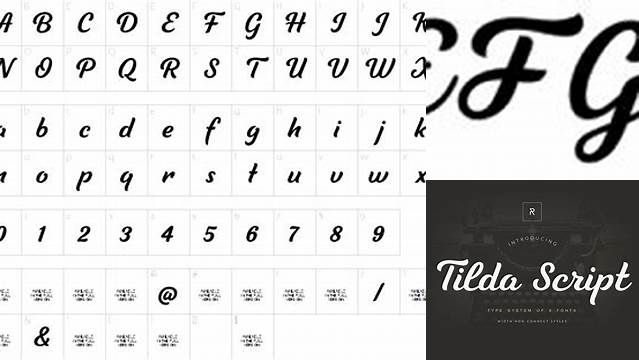
Tilda Script Semibold: Free Font Download & Guide
Are you looking for a font that adds a touch of elegance and personality to your projects? Look no further! Tilda Script Semibold is a fantastic free font that can elevate your designs, making them stand out with its unique charm. In this article, we'll dive deep into what makes Tilda Script Semibold special, how you can use it, and why it's a great choice for various design applications. This versatile typeface is perfect for adding a personal touch to invitations, logos, and website designs. Its flowing lines and semi-bold weight strike a balance between readability and style, ensuring that your message is both beautiful and clear. Whether you're a seasoned designer or just starting out, Tilda Script Semibold is a valuable addition to your font library.
What is Tilda Script Semibold?
Tilda Script Semibold is a beautiful script font known for its flowing, handwritten style. It's designed to mimic natural handwriting, giving your text a personal and authentic feel. The "Semibold" weight adds a bit of boldness, making it more legible and impactful than lighter script fonts. This makes it incredibly versatile for a range of design projects.
Key Features of Tilda Script Semibold
- Elegant Design: The flowing lines and graceful curves give it an elegant and sophisticated look.
- Semi-Bold Weight: Provides better readability and impact compared to lighter script fonts.
- Versatile: Suitable for various design applications, from invitations to logos.
- Unique: Stands out with its distinctive and charming appearance.
Why Choose Tilda Script Semibold?
When it comes to selecting a font, you want something that not only looks good but also serves its purpose effectively. Tilda Script Semibold offers several advantages that make it a standout choice. First and foremost, its elegant design can instantly enhance the aesthetic appeal of any project. Whether you're working on wedding invitations, branding materials, or website headers, this font adds a touch of sophistication and personality. The semi-bold weight is another significant advantage. Unlike some script fonts that can be too delicate and difficult to read, Tilda Script Semibold strikes a perfect balance. It's bold enough to be legible, even in smaller sizes, yet still retains the graceful, flowing lines that make it so attractive. Plus, the fact that it's free makes it an accessible option for designers of all levels. You can experiment with it without worrying about licensing fees or budget constraints. This font is also incredibly versatile, fitting seamlessly into various design styles and themes. Whether you're going for a vintage, modern, or whimsical look, Tilda Script Semibold can adapt to complement your vision. Overall, choosing Tilda Script Semibold means opting for a font that combines beauty, readability, affordability, and versatility – a winning combination for any design project.
How to Use Tilda Script Semibold in Your Projects
Okay, guys, let's get practical! How can you actually use Tilda Script Semibold in your designs? Here are some ideas:
1. Invitations and Cards
Tilda Script Semibold is perfect for wedding invitations, birthday cards, and thank-you notes. Its elegant style adds a personal and sophisticated touch. Imagine using it for the names of the bride and groom on a wedding invitation – stunning!
2. Logos and Branding
If you're looking to create a unique and memorable logo, Tilda Script Semibold can be a great choice. It's especially suitable for brands that want to convey a sense of elegance, creativity, or personal touch. Think about boutiques, artisanal shops, or creative agencies.
3. Website Design
Use it for headings, subheadings, or decorative elements on your website. Be careful not to overuse it, as script fonts can be harder to read in large blocks of text. A little goes a long way!
4. Social Media Graphics
Add a touch of flair to your social media posts with Tilda Script Semibold. Use it for quotes, announcements, or to highlight important information. It will definitely make your graphics stand out.
5. Print Materials
From business cards to brochures, Tilda Script Semibold can add a touch of elegance to your print materials. Just make sure it's legible and complements the overall design.
Tips for Using Tilda Script Semibold Effectively
To make the most of Tilda Script Semibold, keep these tips in mind:
- Pair it wisely: Script fonts generally work best when paired with simpler, more legible fonts for body text. Think sans-serif fonts like Arial or Helvetica.
- Use it sparingly: Too much script can be hard to read. Use it for headings, titles, or short phrases rather than long paragraphs.
- Consider the context: Make sure the font fits the overall style and tone of your project. It might not be the best choice for a serious, corporate document.
- Adjust the spacing: Play around with the letter spacing and line height to achieve the best readability and visual appeal.
- Test it out: Always test your designs on different devices and in different sizes to ensure it looks good everywhere.
Tilda Script Semibold is a fantastic free font that can add a touch of elegance and personality to your designs. Its flowing lines, semi-bold weight, and versatile nature make it a great choice for various projects, from invitations to logos. So go ahead, download it, and start creating beautiful designs today! Remember to always check the license and use it wisely. Happy designing, guys!